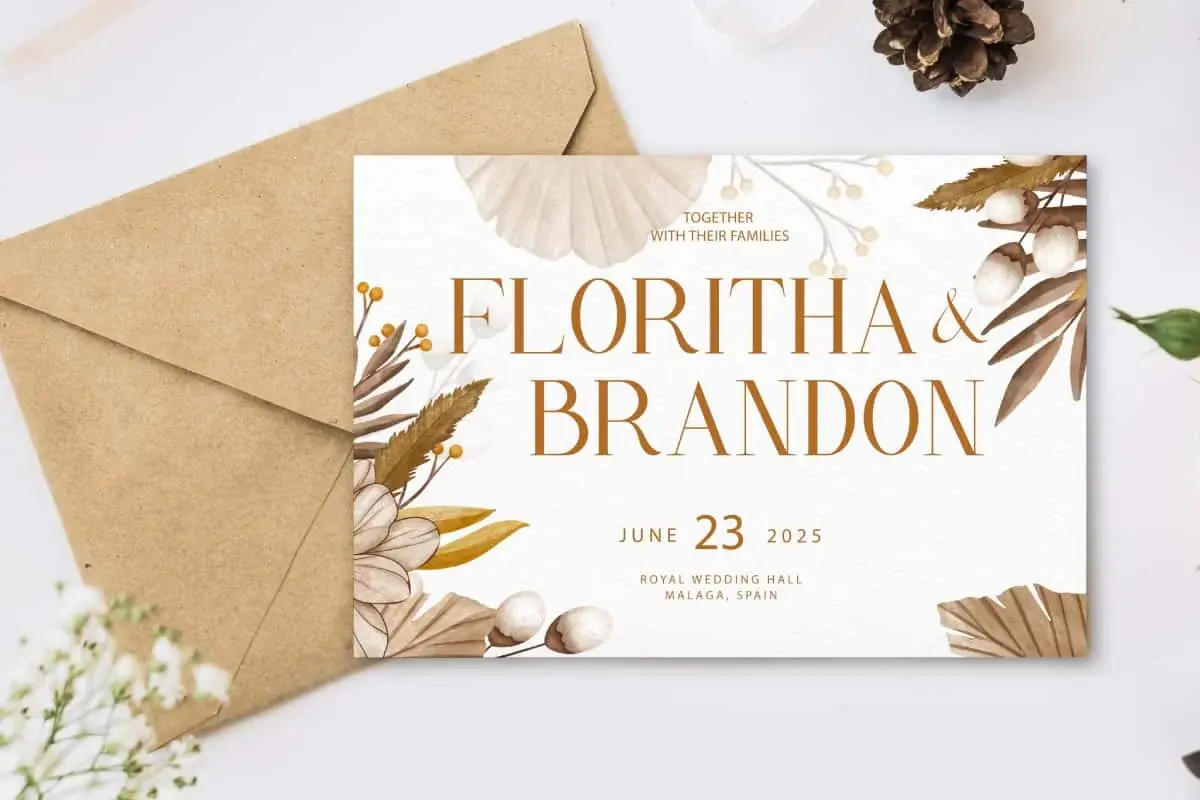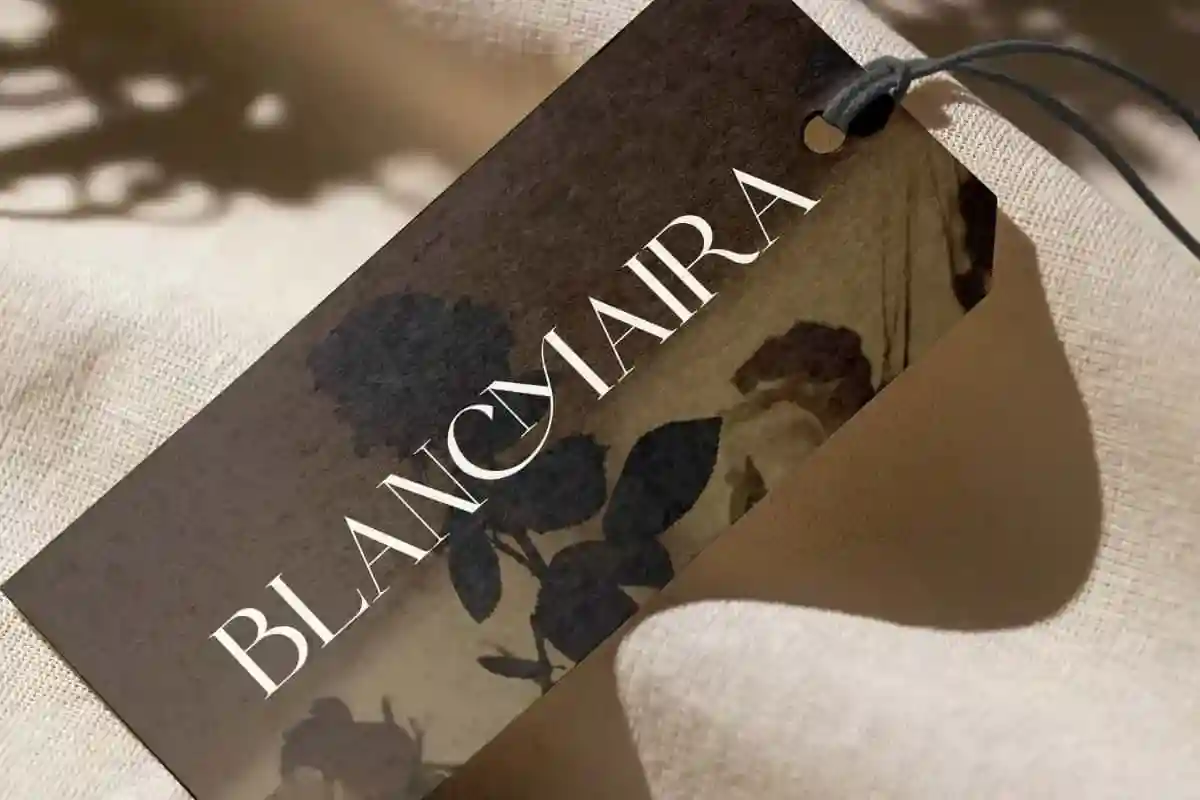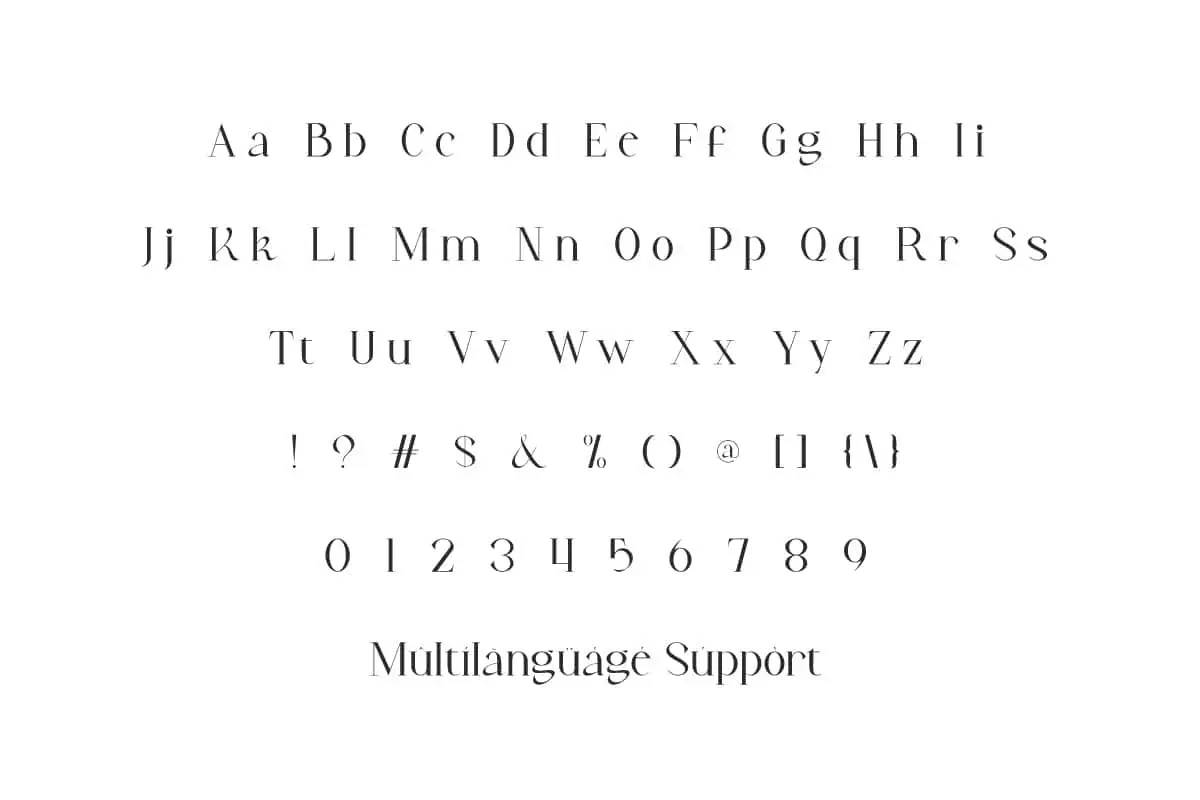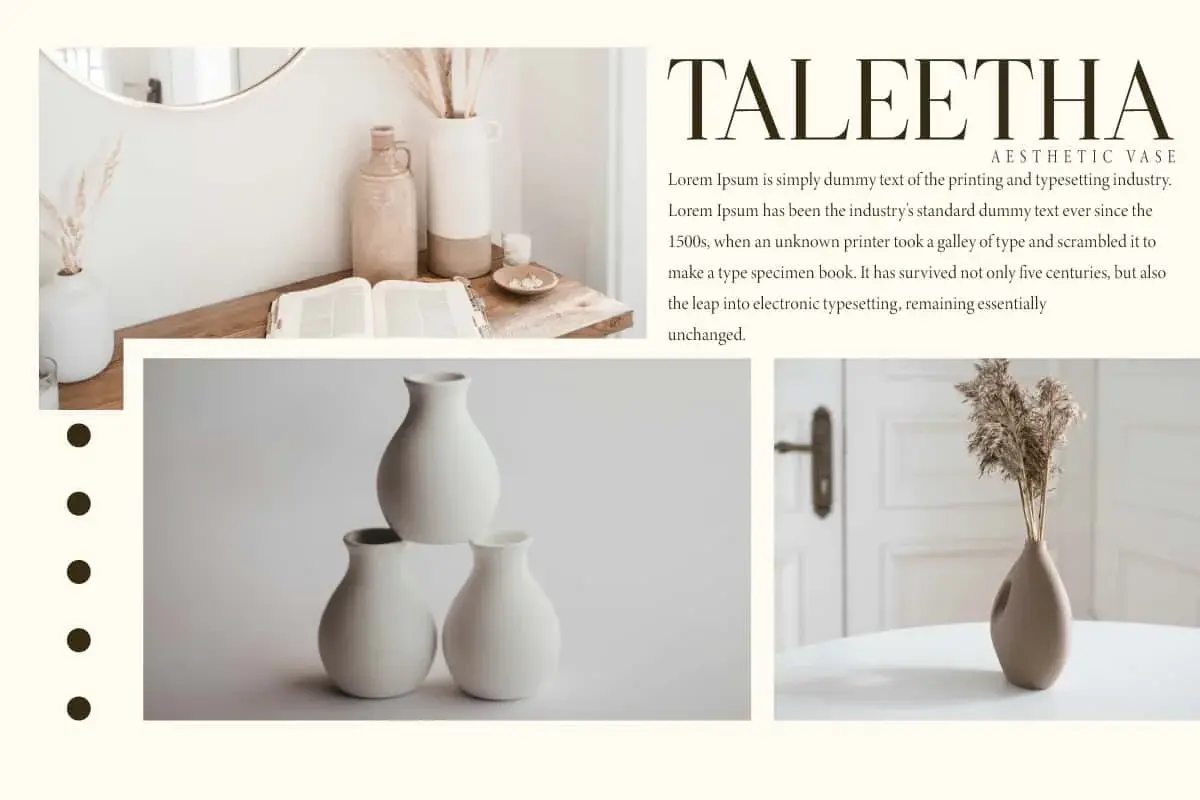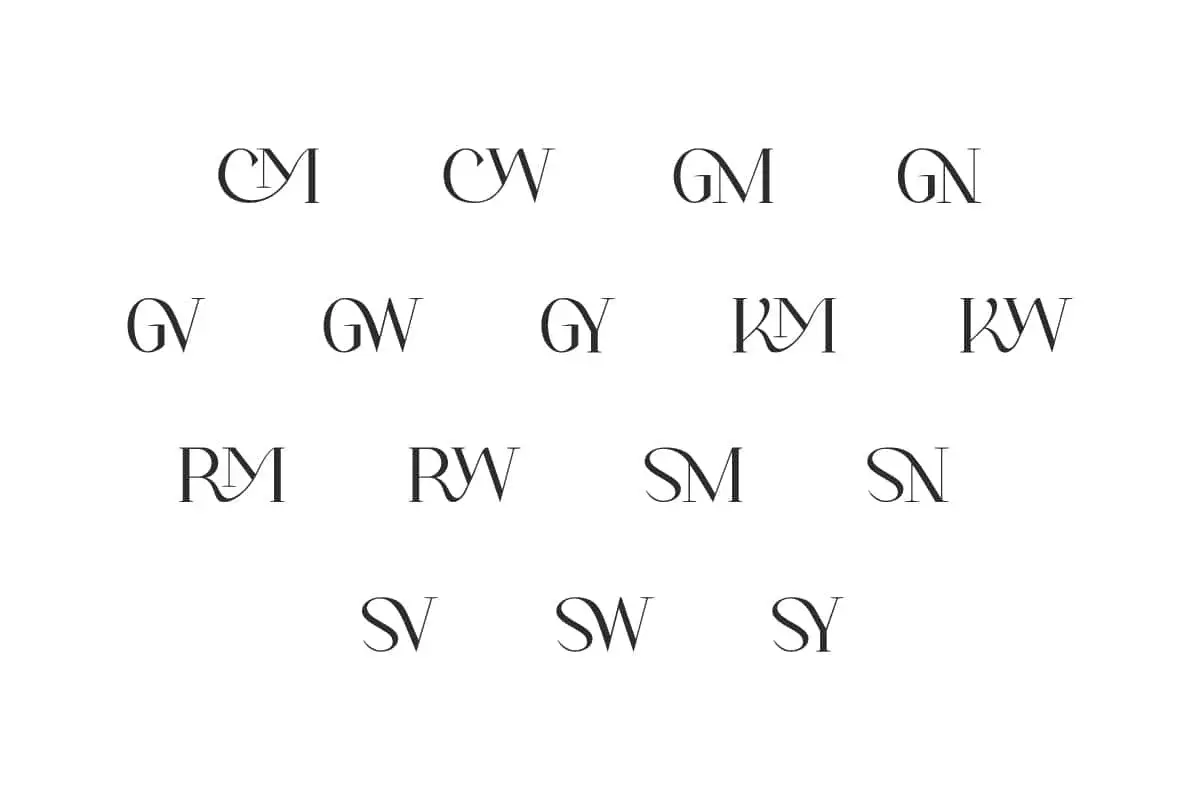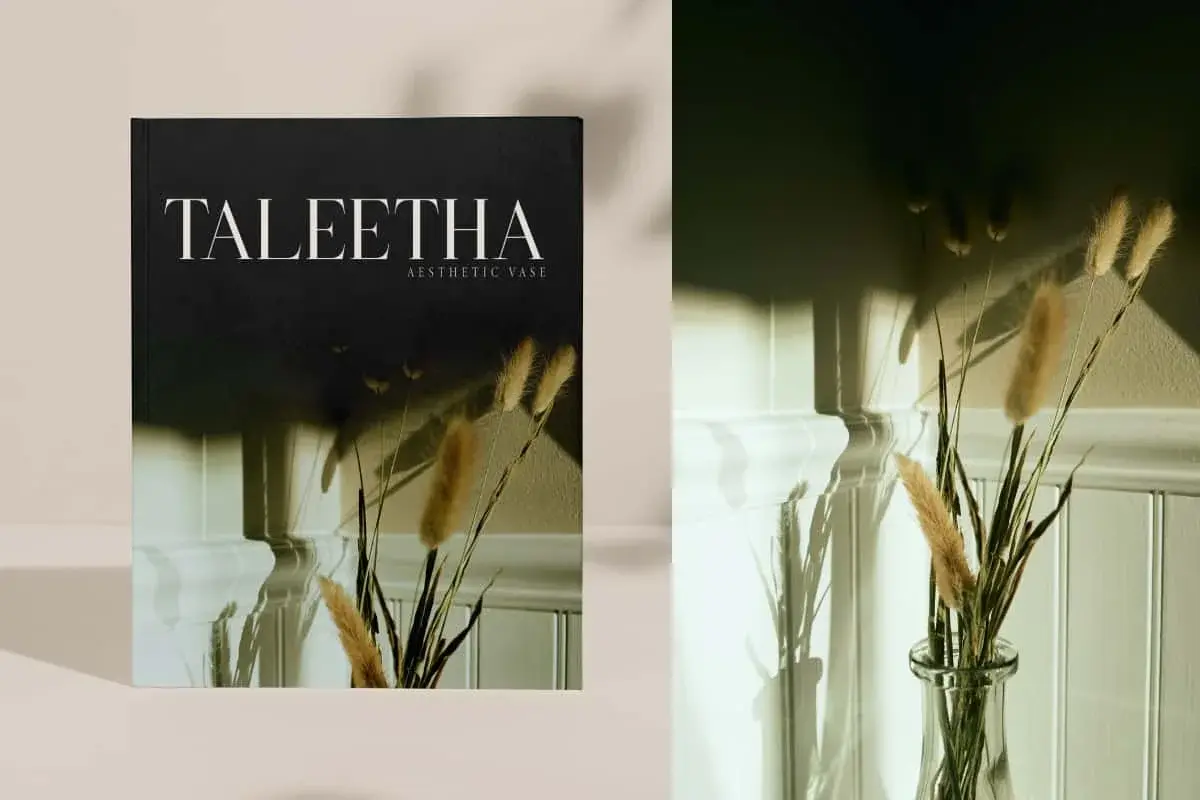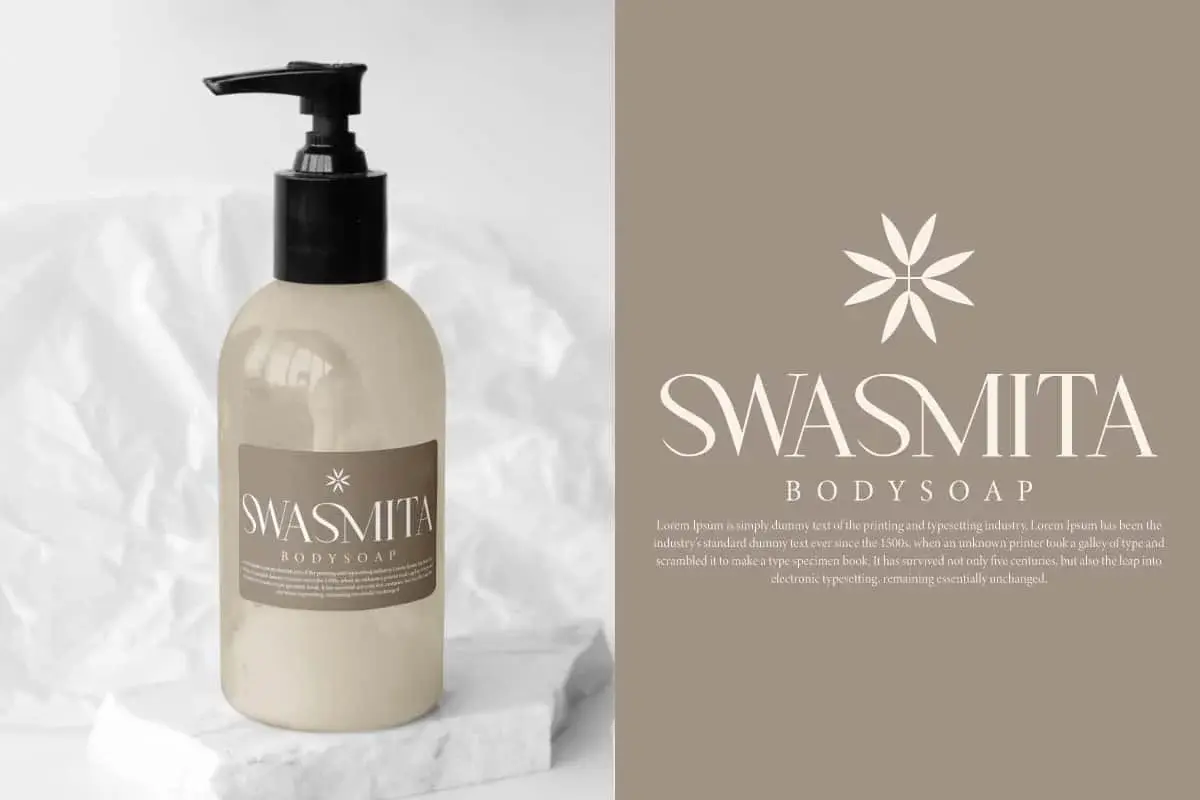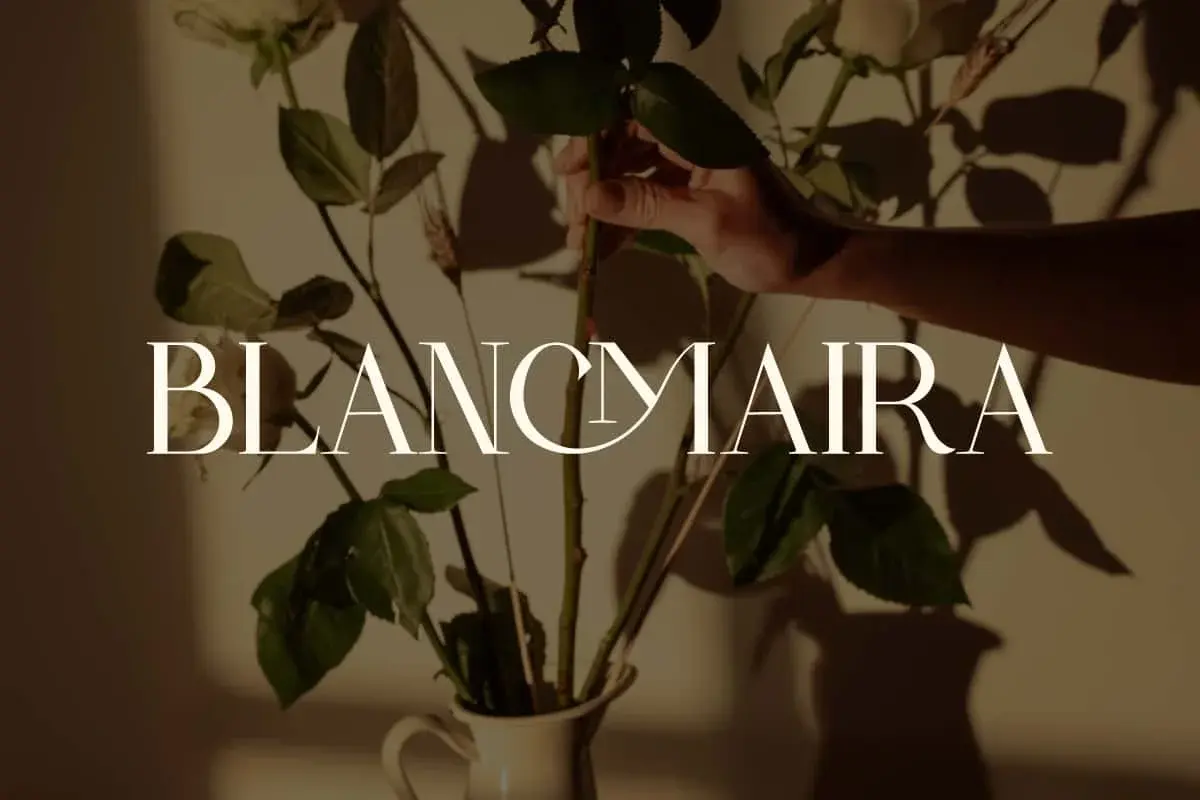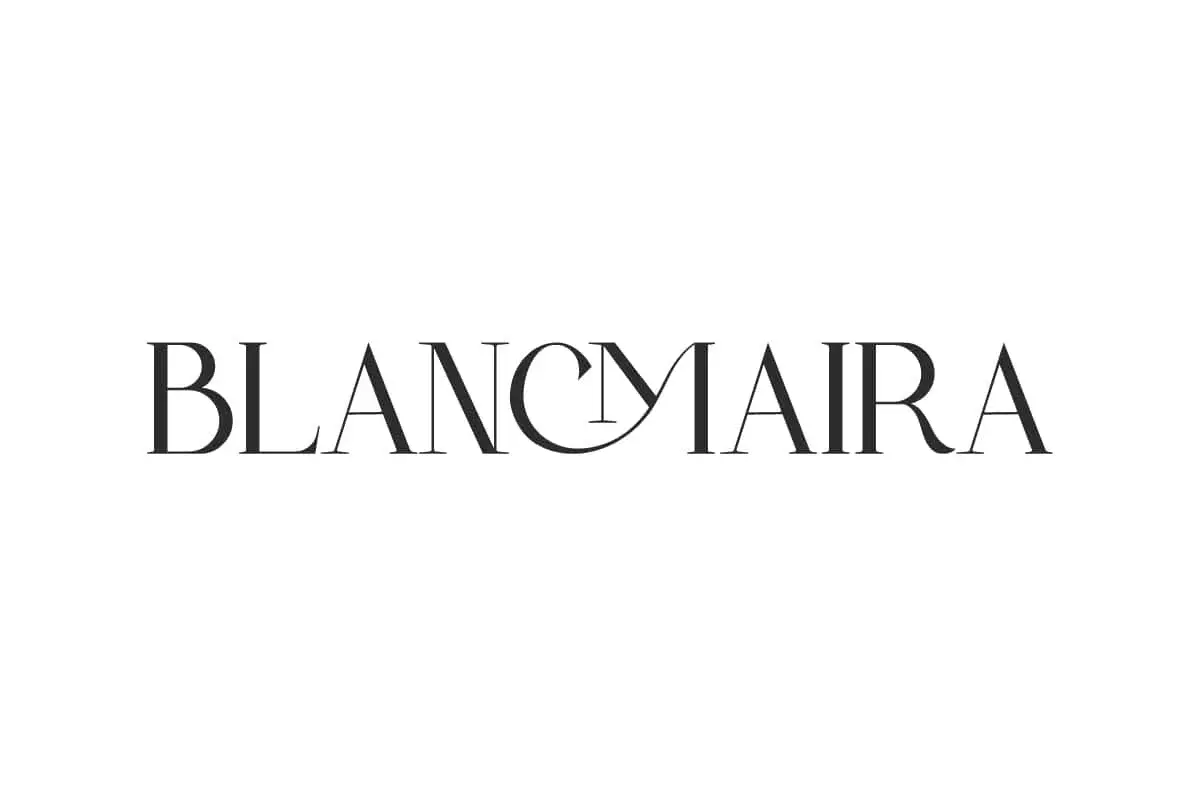
Blancmaira Font is a charming stylish serif display font featuring beautiful ligatures can be customized to suit your creative design needs!
Blancmaira Font is a charming stylish serif font designed with elegance in its own way. Accompanied by stylish and eye-catching ligatures. This beautiful font is suitable for use in banners, billboard, blogs, card design, cover, flyer, headers, headline, invitation, label tag, logo, mockup, poster, product packaging, quotes, stickers, title, website and many more.
Blancmaira Font includes full set of Uppercase and Lowercase Basic Characters, Numbers, Punctuation, Symbols and Ligature. With its modern and minimalist look, this font brings a luxurious and clean style to advertising, beautician, event organizer, fashion, florist, handicraft, home furniture, interior design, printing, publisher, skincare, wedding, and whatever your heart dreams up!